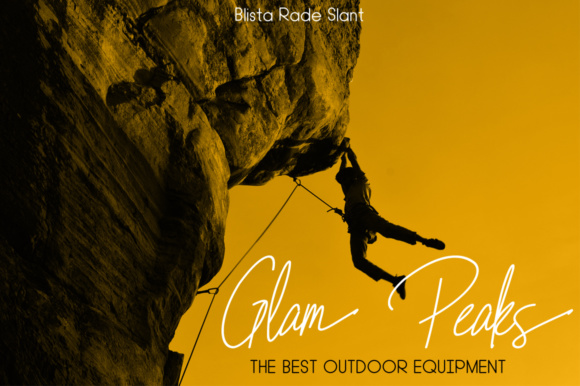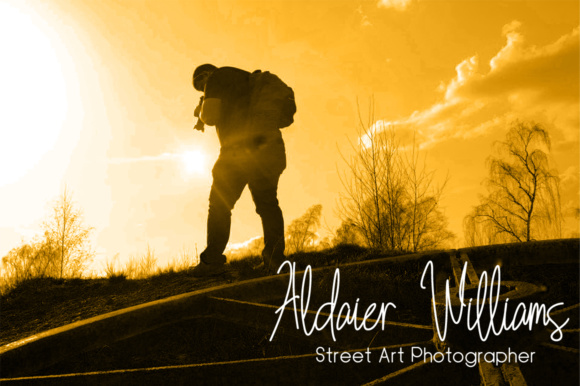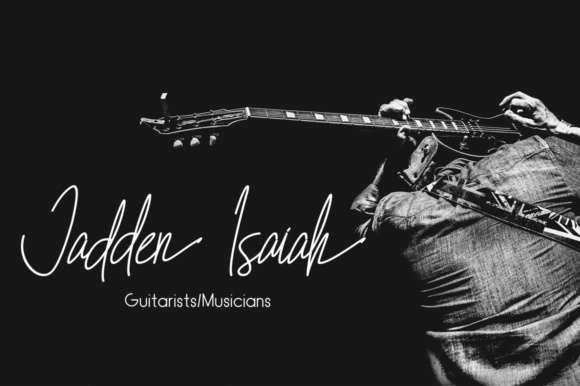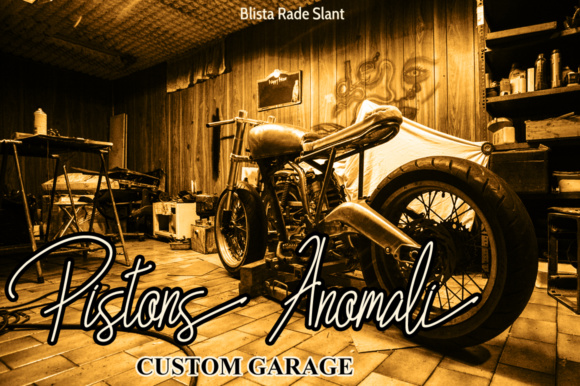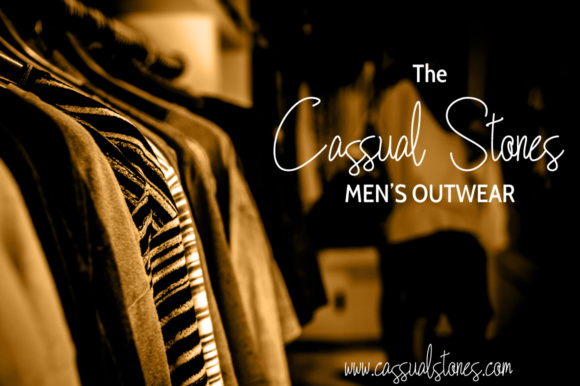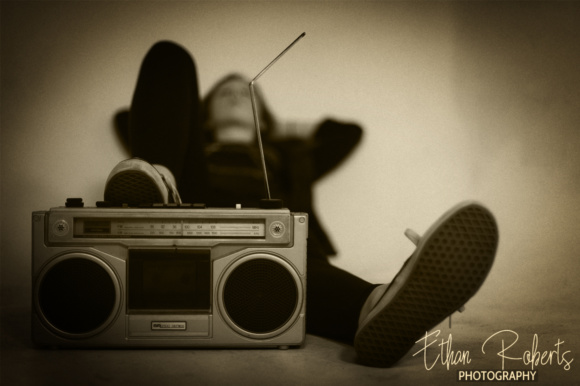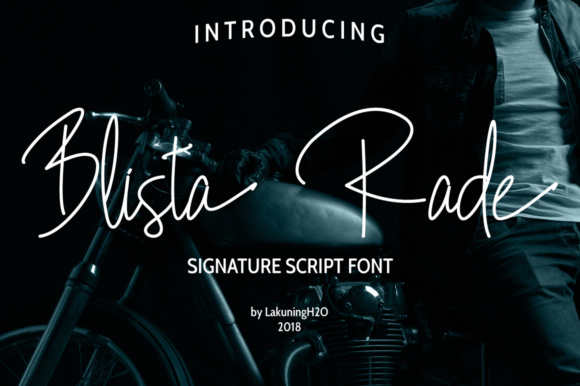
Blista Rade Font: Elevate Your Designs with a Handwritten Signature Script
In the realm of typography, few fonts manage to capture the essence of personal touch and elegance as effectively as the Blista Rade font. This handwritten signature script font has been making waves in the design community for its natural and clean flow, making it an excellent choice for a wide range of creative projects. Whether you’re a seasoned designer or a crafty DIY enthusiast, Blista Rade is sure to leave a lasting impression.
The Charm of Blista Rade
Blista Rade boasts a unique charm that sets it apart from more traditional fonts. Its handwritten nature gives it a personal and approachable feel, perfect for designs that aim to connect with the audience on a more intimate level. The font’s natural flow ensures that each line has a distinct character, adding a layer of authenticity to any text it’s used for.
Ideal for Display and Logotype Works
One of the standout features of Blista Rade is its exceptional suitability for display and logotype works. Its elegant and fluid strokes make it perfect for headlines, titles, and logos, where making a statement is key. The font’s design ensures that it remains clear and legible even at larger sizes, making it versatile for various applications, from billboards to business cards.
The versatility of Blista Rade is one of its most appealing qualities. Designers can use it to add a touch of sophistication and personality to a wide array of projects. Here are a few ideas on how to incorporate Blista Rade into your designs:
- Branding and Logos: Use Blista Rade to create memorable and impactful logos that stand out.
- Invitations and Stationery: Add a personal touch to wedding invitations, greeting cards, and other stationery.
- Advertising and Marketing: Make your advertisements more engaging with eye-catching headlines.
- Packaging: Elevate product packaging with elegant and distinctive typography.
- Digital Media: Use Blista Rade in social media graphics, blog headers, and video titles for a professional yet friendly look.
Why Designers and Crafters Love Blista Rade
Designers and crafters alike are drawn to Blista Rade for several reasons:
- Elegance: It adds a level of sophistication to any design.
- Uniqueness: Its handwritten nature ensures your work stands out.
- Versatility: Suitable for a wide range of projects, from digital to print.
- Readability: Despite its elegant nature, Blista Rade remains clear and easy to read.
Tips for Using Blista Rade Effectively
To make the most of Blista Rade, consider the following tips:
- Pair with Complementary Fonts: Use Blista Rade alongside simpler fonts to create contrast and hierarchy in your designs.
- Experiment with Colors: While Blista Rade looks great in black, experimenting with colors can add a unique spin to your designs.
- Adjust Letter Spacing: For a more customized look, adjust the letter spacing to fit the tone of your project.
Blista Rade is more than just a font; it’s a design element that can elevate your projects with its elegance and personality. Whether you’re working on a branding campaign, crafting a unique invitation, or simply looking to add some flair to your digital content, Blista Rade offers a versatile and stylish solution. Its natural flow and clean lines make it a standout choice for designers and crafters looking to make a lasting impression.
So why settle for ordinary when you can make your designs extraordinary with Blista Rade? Dive into the world of elegant typography and discover the difference that a handwritten signature script font can make.